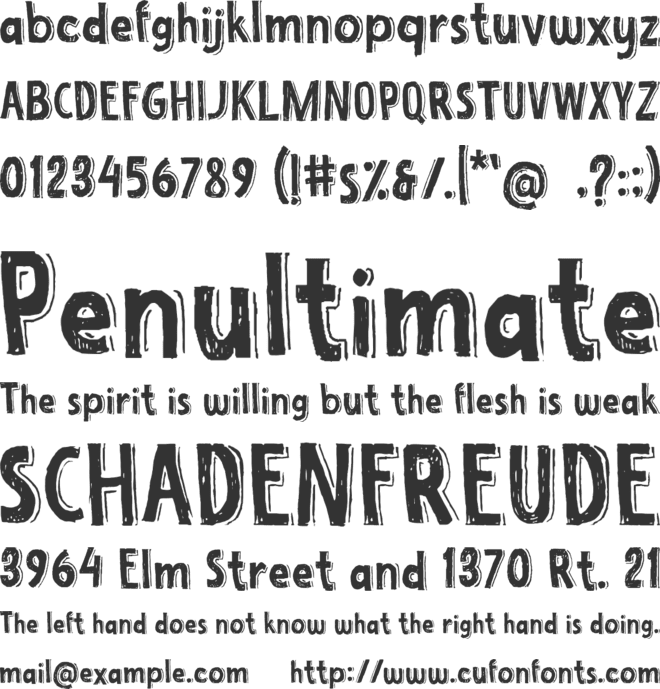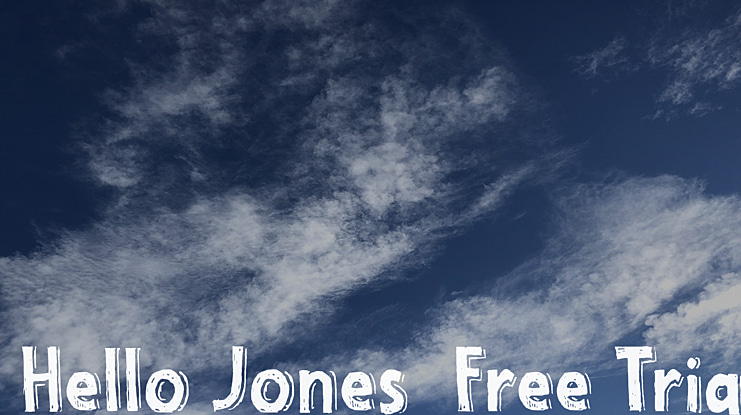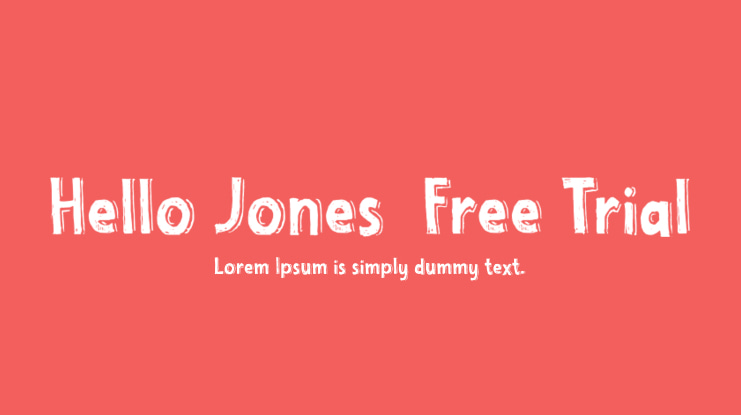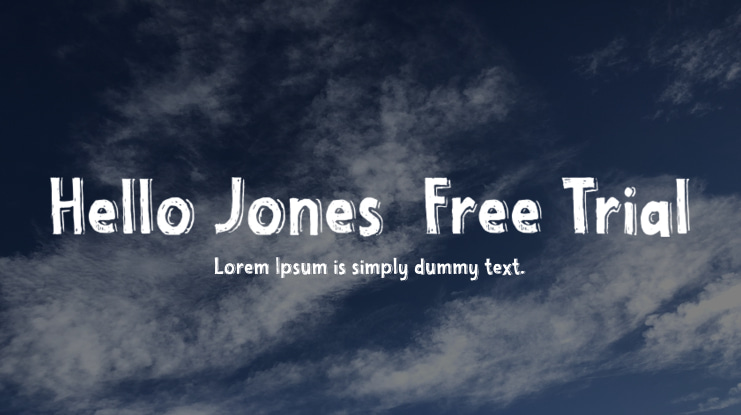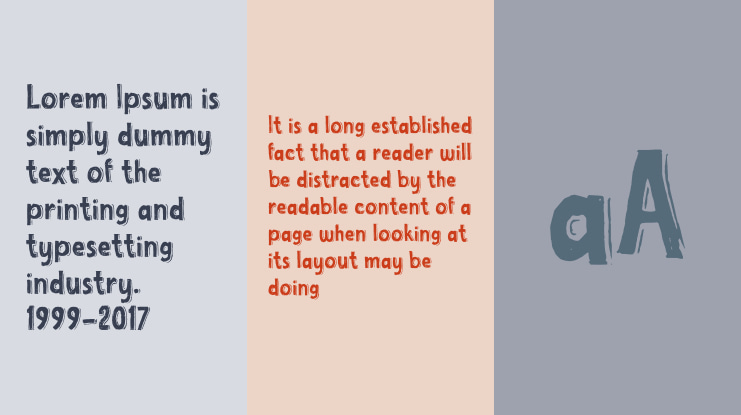
Hello Jones Free Trial Font
Hello Jones is a unique Vintage Sans font. It can easily be matched to an incredibly large set of projects, so add it to your creative ideas and notice how it makes them stand out!